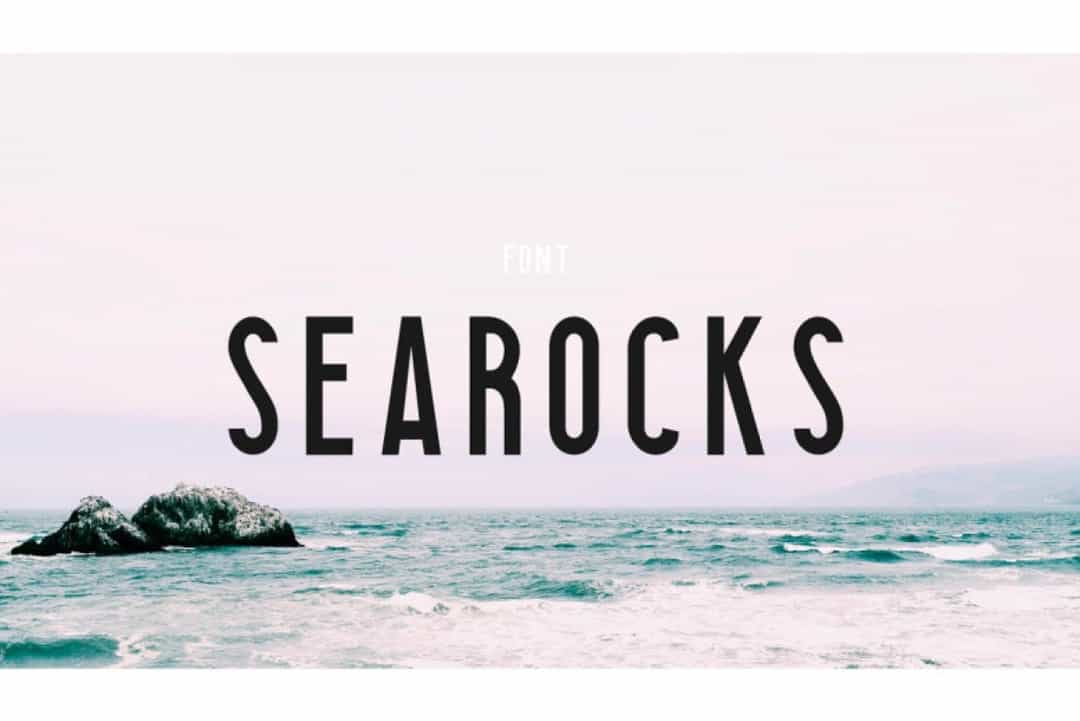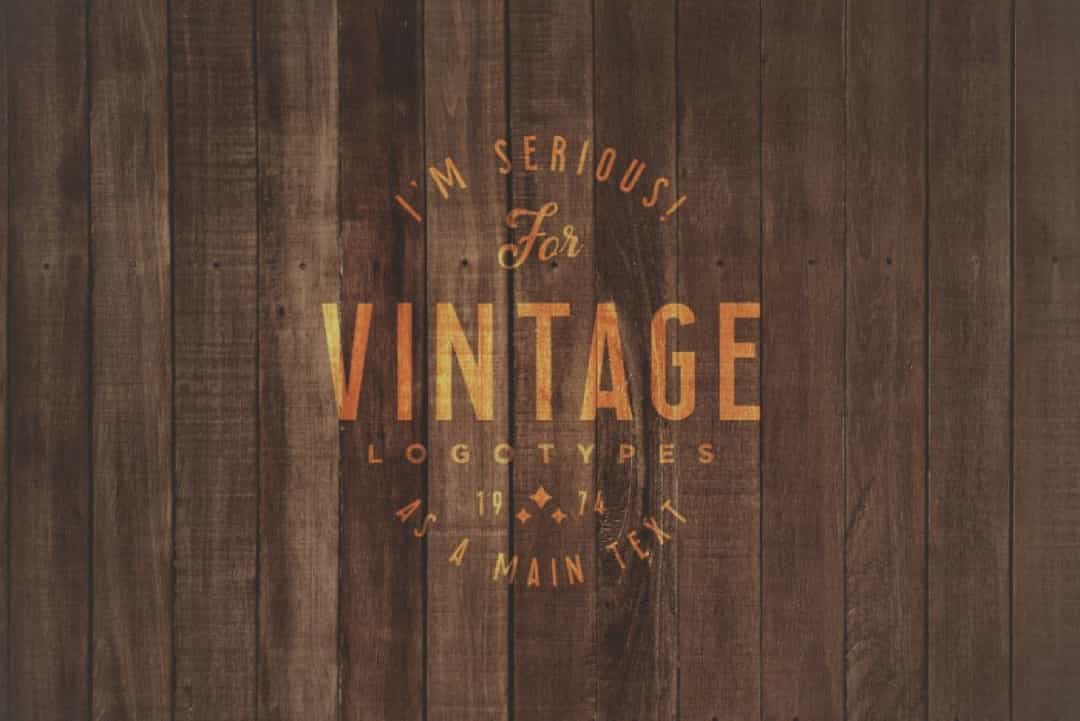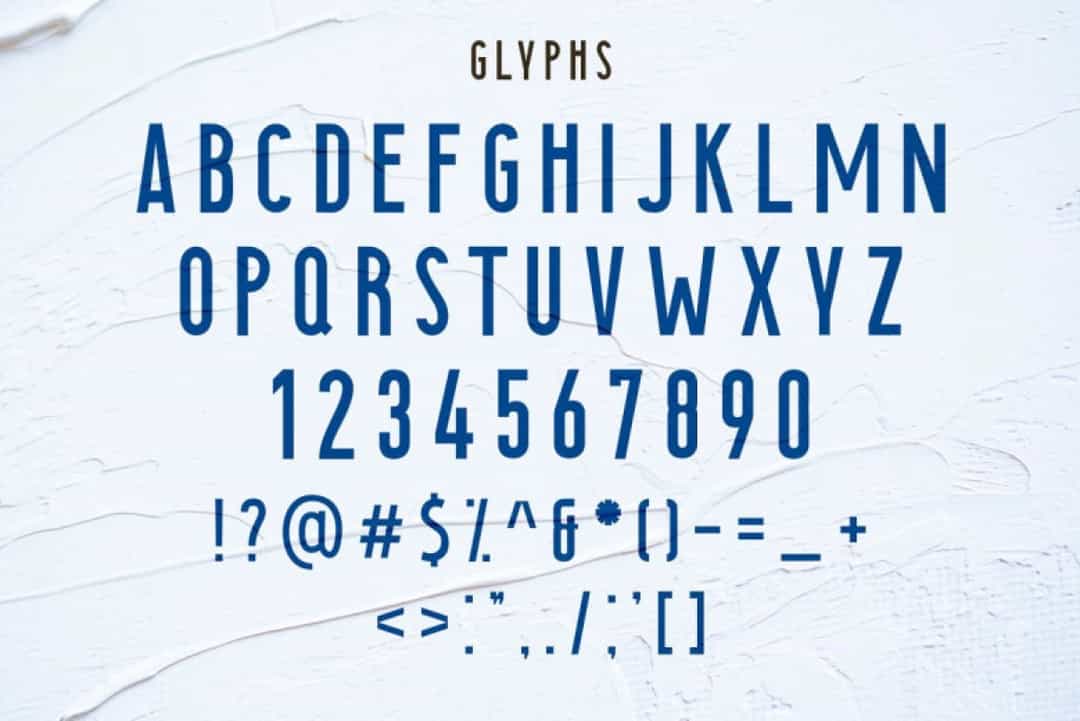
Searocks is an all-caps sans serif font designed for multiple uses, from creating adorable postcards to rough vintage logos. With its distinctive sharp lines and strong personality, this font works wonderfully wherever emphasising strong styles is necessary.